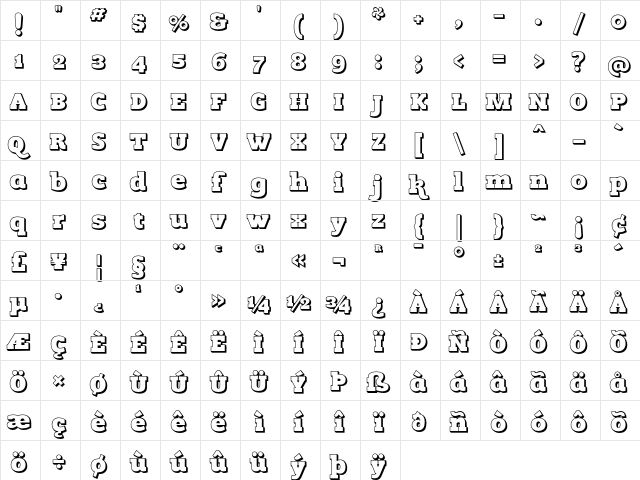
Romeral inline Regular
Design Context for Romeral inline Typeface
Romeral inline brings ornamental detail and strong personality to headlines and identities, where visual impact matters more than quiet functionality.
Font Pairing: Pair with a clean neutral sans-serif for body copy to let Romeral inline's character lead without overwhelming the composition.
Pro Tip: Use Romeral inline exclusively at display sizes — it was designed to be seen, not read at length. Let a neutral companion handle body copy.